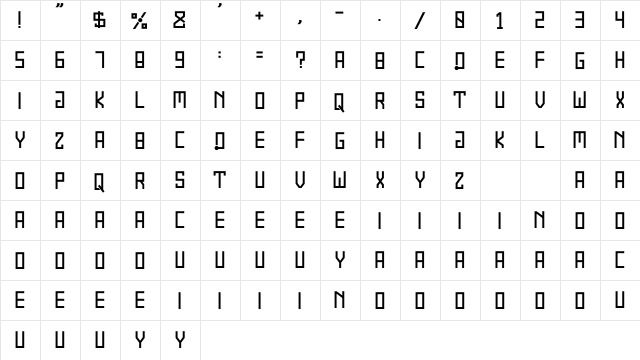
KUVAS Regular Font Preview
KUVAS Regular
KUVAS Regular Font Details
| Foundry | RantauType |
| Designer | Yudi Pratama Chandra |
Design Context for KUVAS Typeface
KUVAS offers clean, dependable letterforms without strong stylistic allegiance, making it a practical choice for designers who need flexibility.